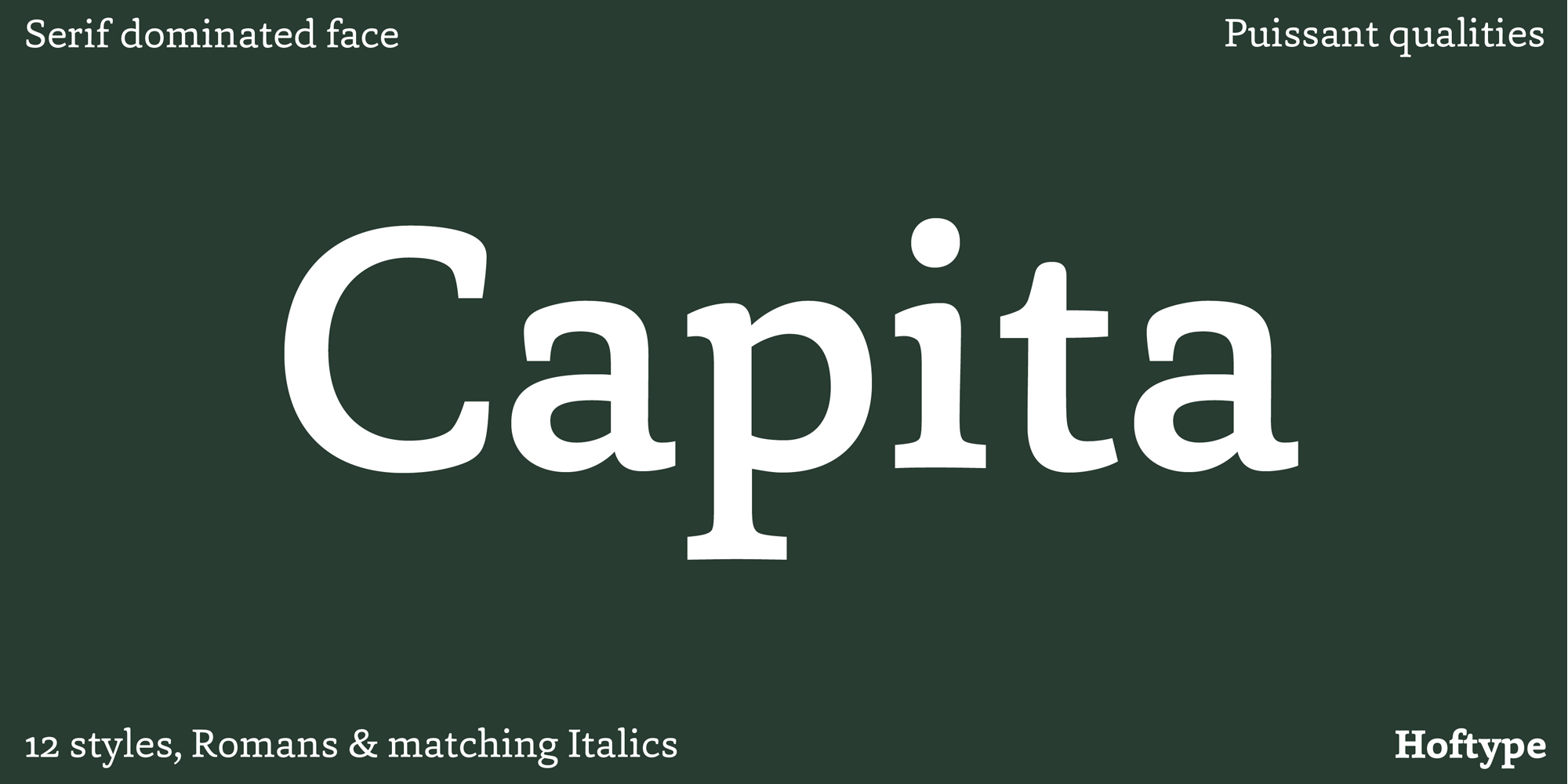
Capita Font excels in professional design applications including corporate branding materials, financial report layouts, business presentation designs, executive letterheads, premium banking communications, legal document formatting, investment portfolio designs, professional website headers, and sophisticated marketing collateral. Its authoritative character makes it perfect for projects requiring trust, credibility, and executive-level professionalism across all business communications.
What makes Capita Font exciting is its exceptional ability to convey institutional authority while maintaining approachable readability that builds immediate trust with audiences. This distinguished typeface features refined proportions and classical influences that communicate stability, expertise, and long-term reliability. The font's professional personality makes it ideal for established organizations seeking to reinforce their market leadership and communicate unwavering confidence to stakeholders and clients.
Capita Font provides a comprehensive family structure including Light, Regular, Medium, Bold, and Black weights, along with corresponding Italic versions, Small Caps variants, and Condensed styles. Each family member maintains the authoritative core design while offering different levels of visual hierarchy and formal expression to accommodate complex corporate communication needs and traditional business documentation requirements.
Business professionals and corporate designers will discover that Capita Font Free Download represents an essential resource for creating prestigious organizational communications. This typeface demonstrates exceptional performance in both formal document applications and digital brand presentations, ensuring consistent professional excellence across all corporate platforms. Whether developing annual reports, creating board presentations, or designing executive communications, this font consistently delivers results that reflect organizational strength and competence.
The Capita Font showcases traditional craftsmanship combined with contemporary technical precision, featuring optimized letterforms that ensure exceptional legibility in formal business contexts. Its comprehensive character set includes financial symbols, legal notations, and extensive multilingual support that makes it suitable for international corporate applications. The font's classical proportions and refined spacing guarantee professional appearance across all traditional and digital business formats.
Corporate communication teams particularly value Capita Font for its ability to establish immediate credibility and institutional presence. The typeface works exceptionally well for banks, law firms, consulting companies, investment groups, insurance providers, and established corporations. Its timeless appeal ensures brand longevity while its authoritative presence builds confidence among professional audiences and high-value clients.
The structured elegance of Capita Font makes it particularly effective for creating comprehensive corporate identity systems that reflect organizational maturity. Its distinguished character creates memorable professional recognition while maintaining excellent functionality across various business contexts, from detailed financial documents to large-scale corporate signage, ensuring consistent and authoritative brand communication across all stakeholder interactions and business relationships.